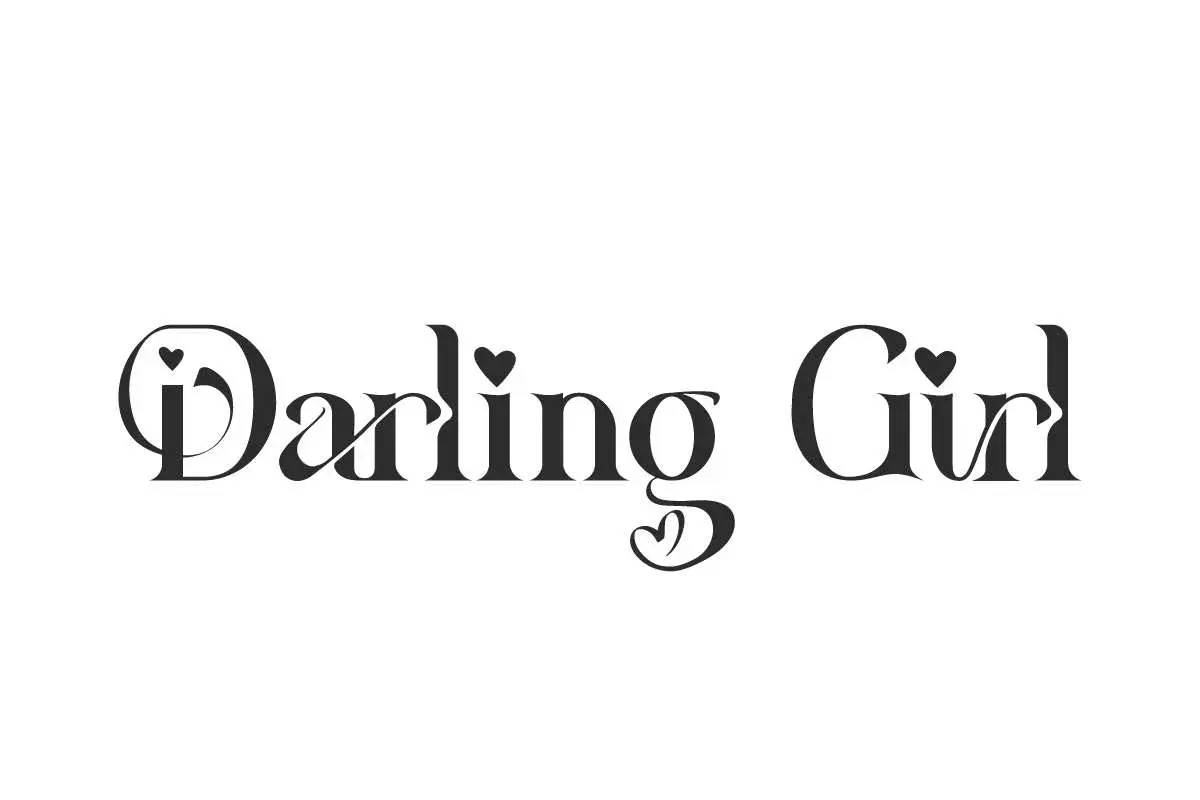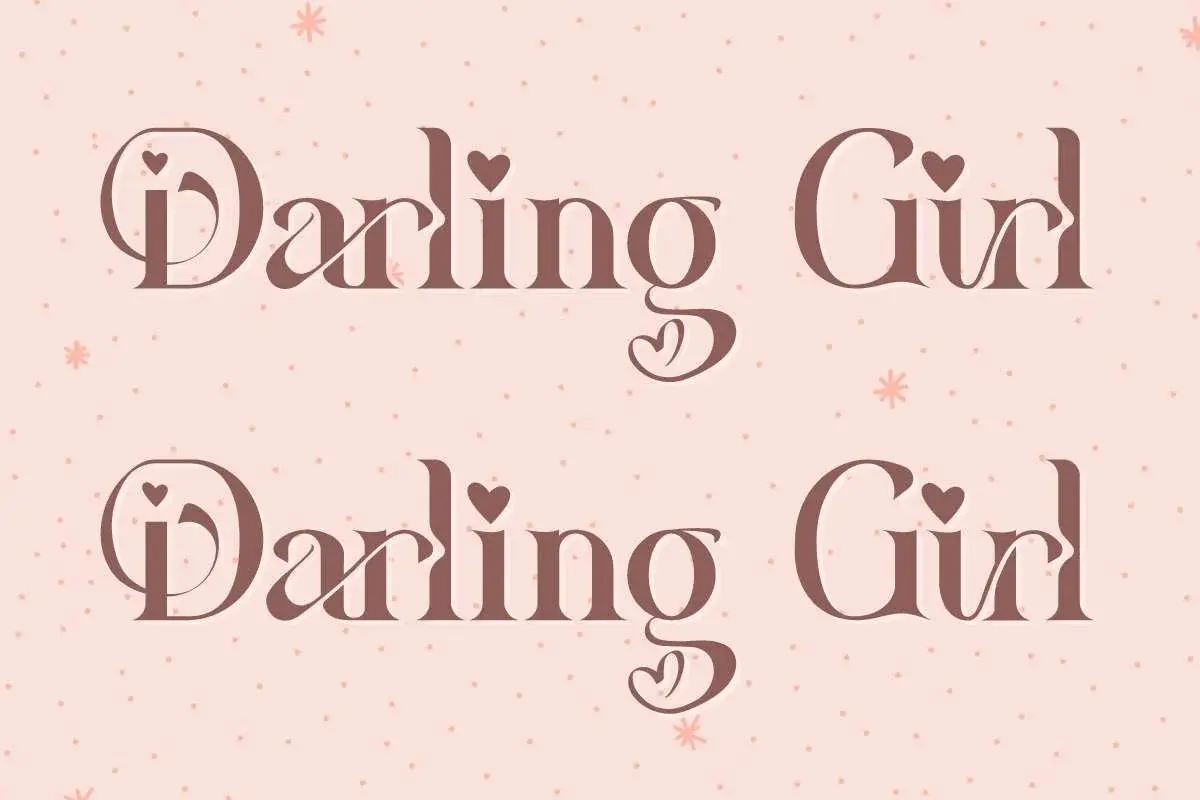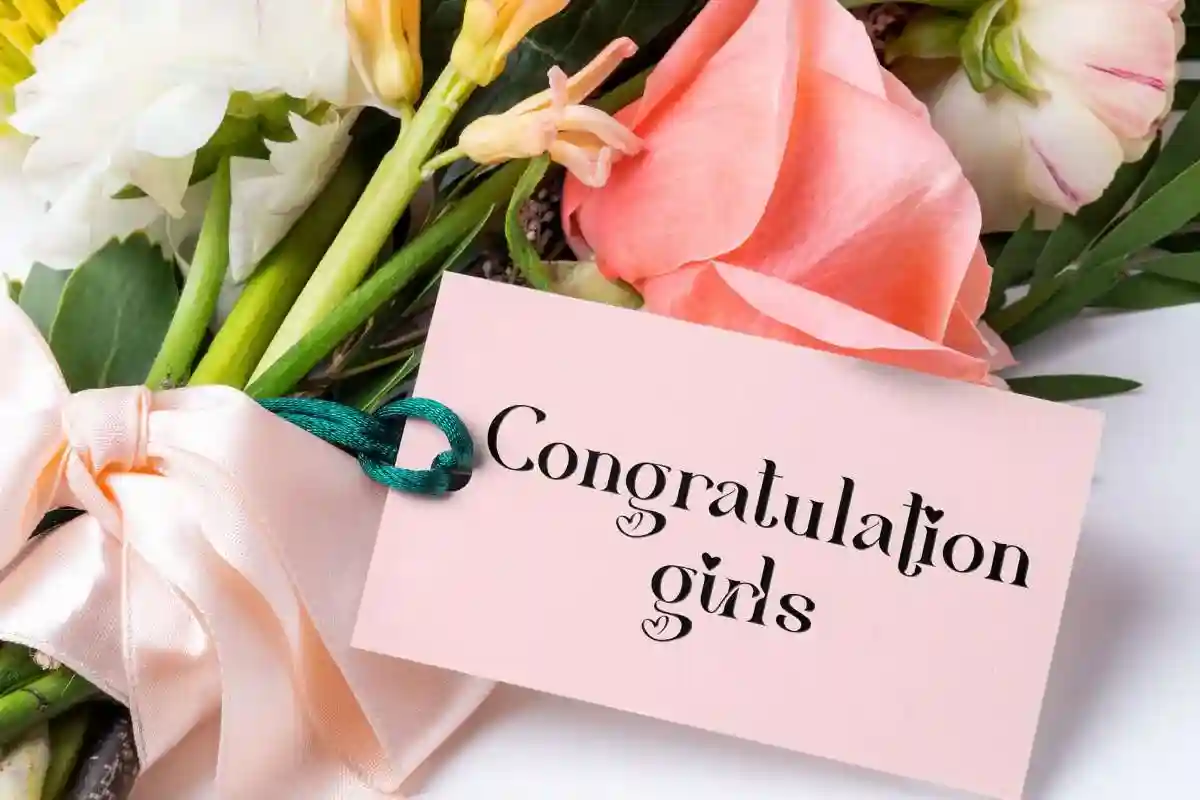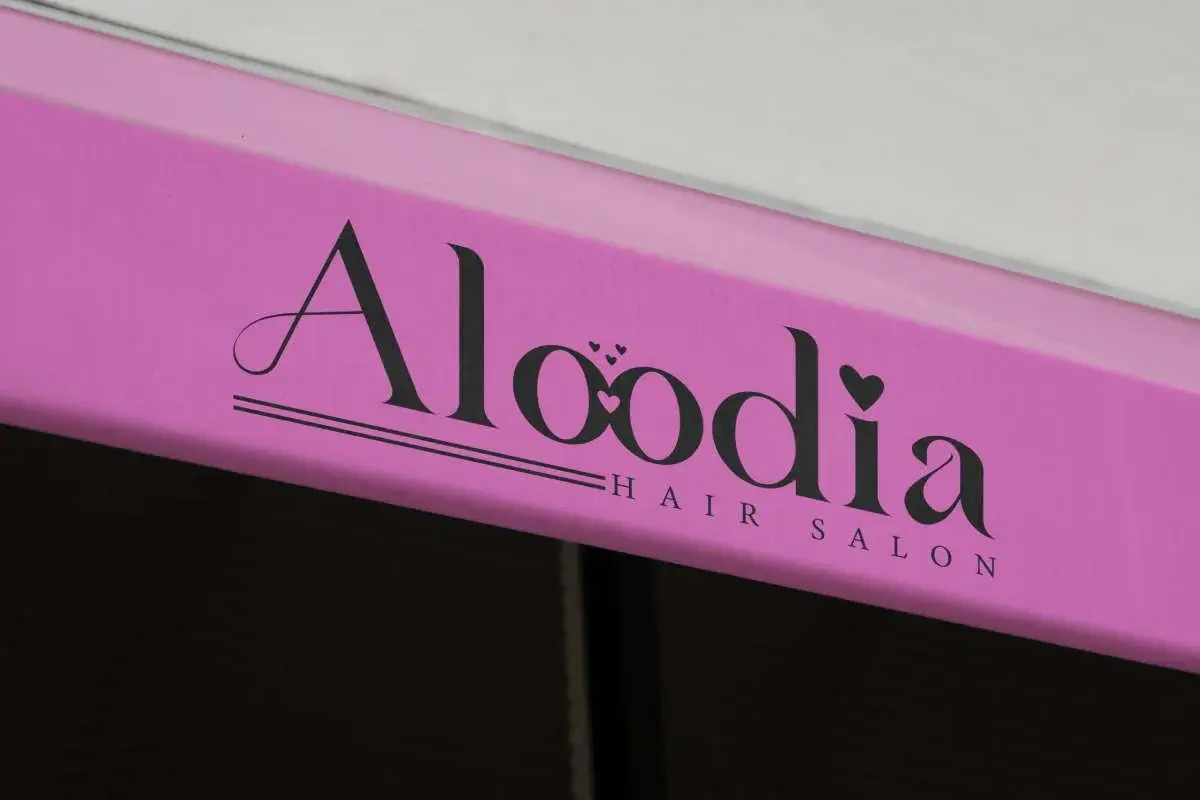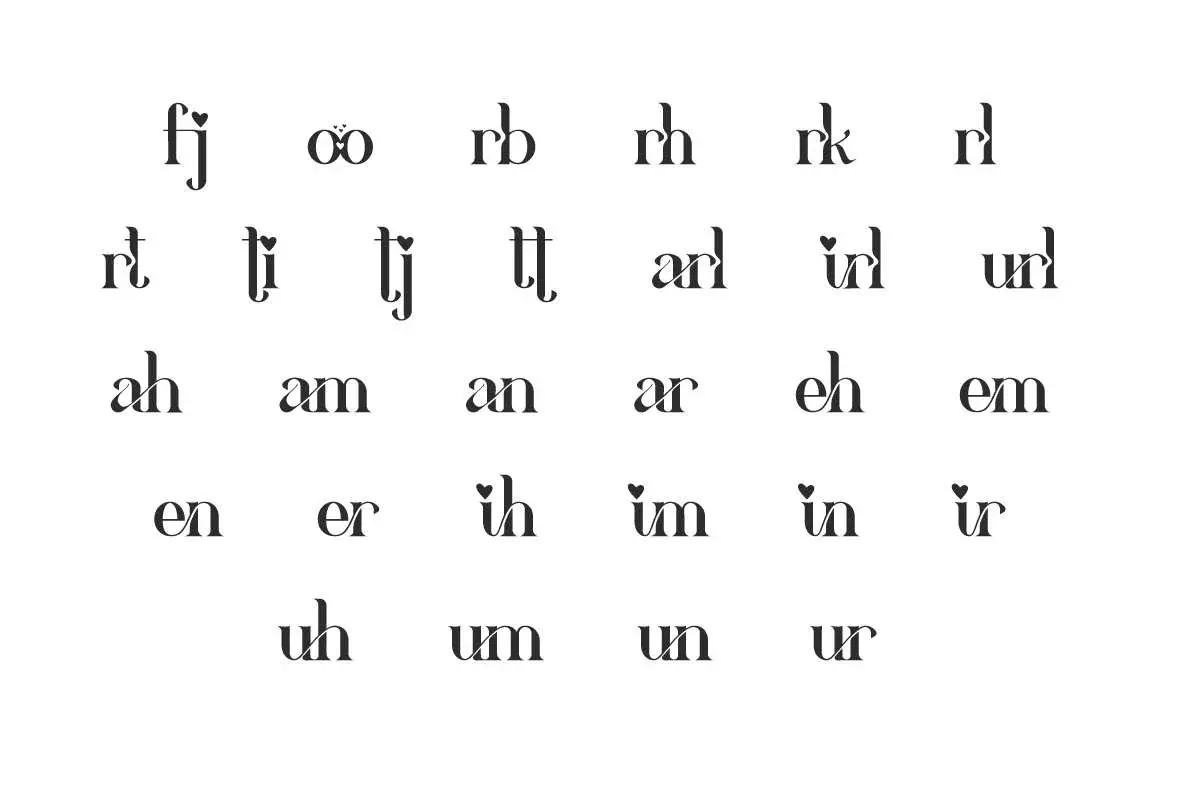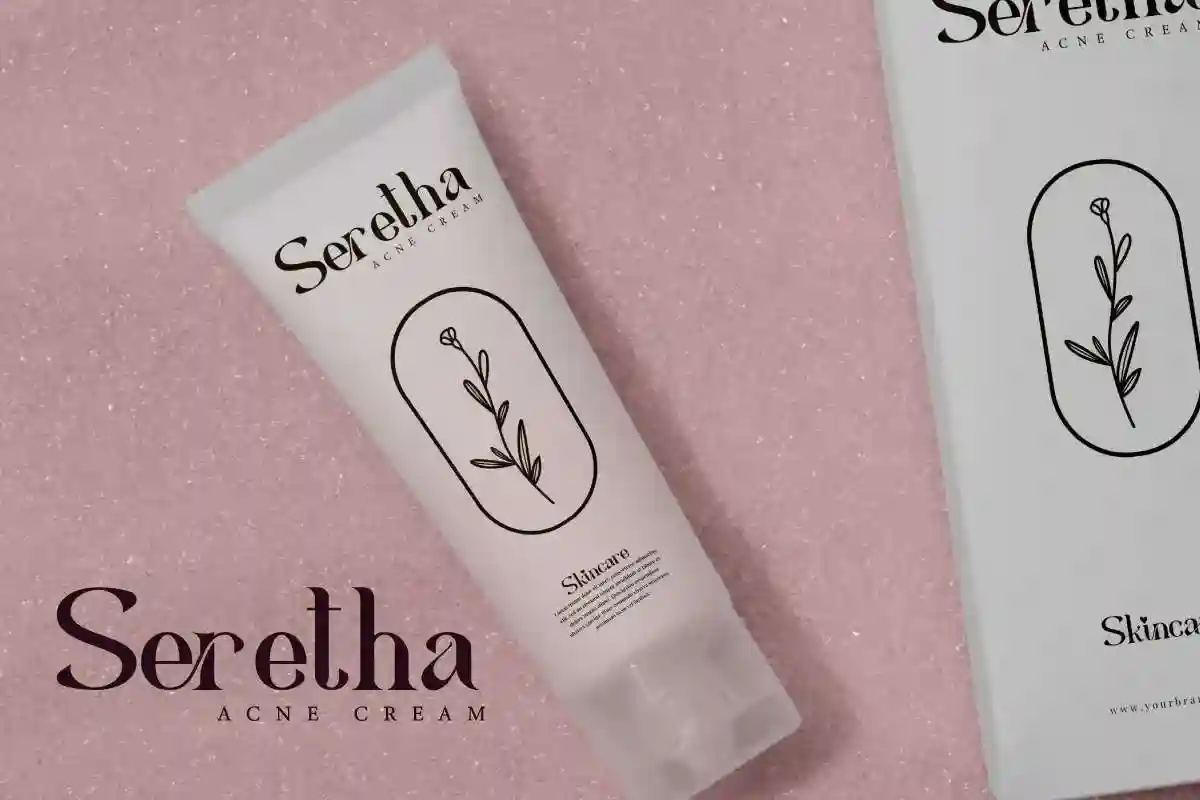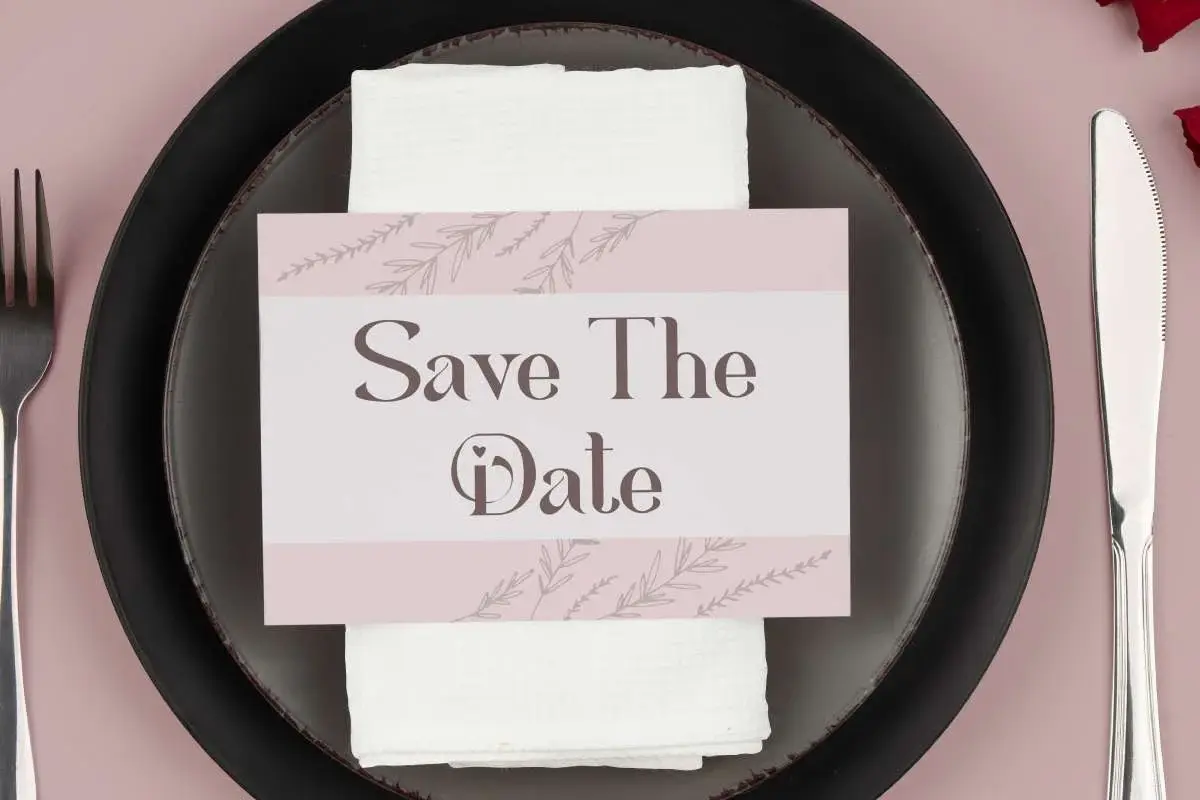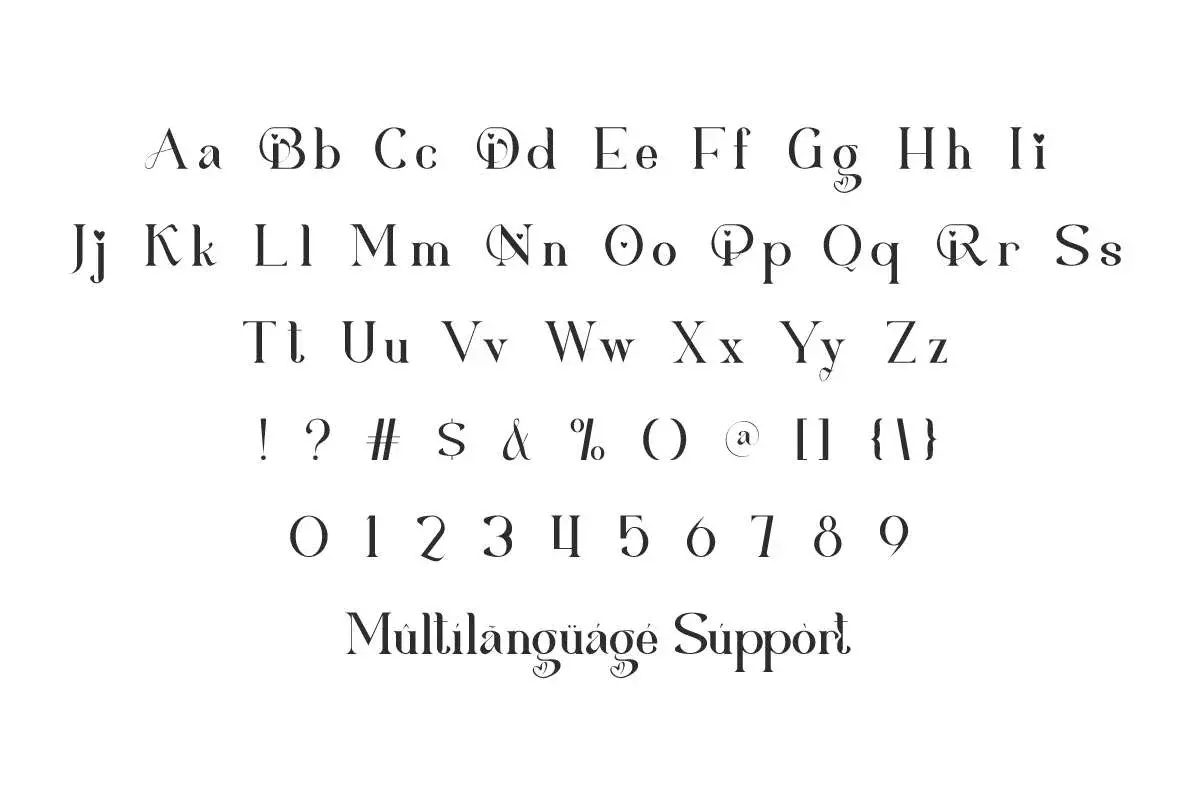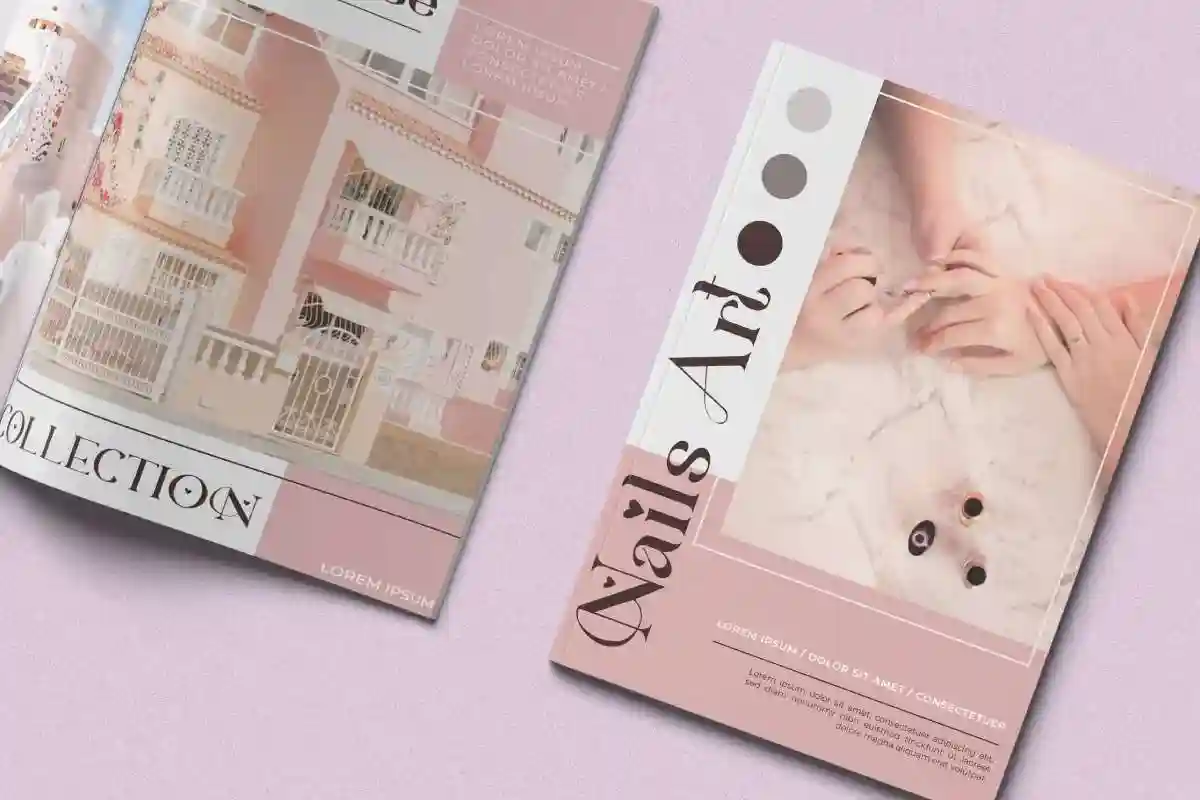
Darling Girl Font is a lovely serif display font that has an awesome charm of love. It will be perfect for beauty salon, florist, header, photography, and many more.
Darling Girl Font is a sweet decorative serif display font with the theme of love in it. It will be able to elevate your designs to high level, such as billboard, brand logo, brochure, business card, greeting card, header, invitation, label, magazine catalog, mockup design, poster, product packaging, quote, screen print, signage, stationery, sticker, title, website, etc.
Darling Girl Font includes full set of Uppercase and Lowercase Basic Characters, Number, Punctuation, Symbol, and Ligature. The carefully crafted typeface provides an almost perfect look to suit your business, such as apparel, bakery or pastry, beauty salon, café, cosmetic, event organizer, fashion designer, florist, furniture, gardener, handicrafts, homeware, lodging, nail art, photography, printing, publishing, restaurant, skincare, wedding, writer, and many more.